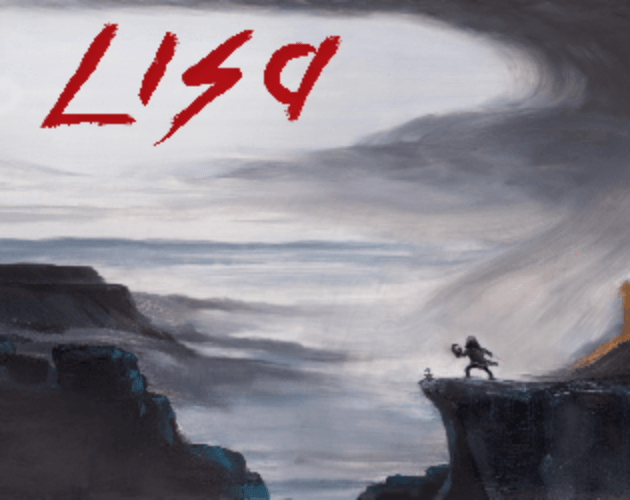
Lisa The Painful Font
Fonts in UseLisa: The Painful is a role-playing video game developed by Dingaling Productions. The game follows a man named Brad, who sets out on a journey through a post-apocalyptic wasteland to find his adopted daughter, encountering various obstacles and dark themes along the way.
The game logo features a font that resembles Chequered Ink's Kill The Noise, particularly the "sa" part, while the in-game dialogue text is displayed in VCR OSD Mono, a font created by Riciery Leal. You can view and download both fonts from the Fonts Used Section.